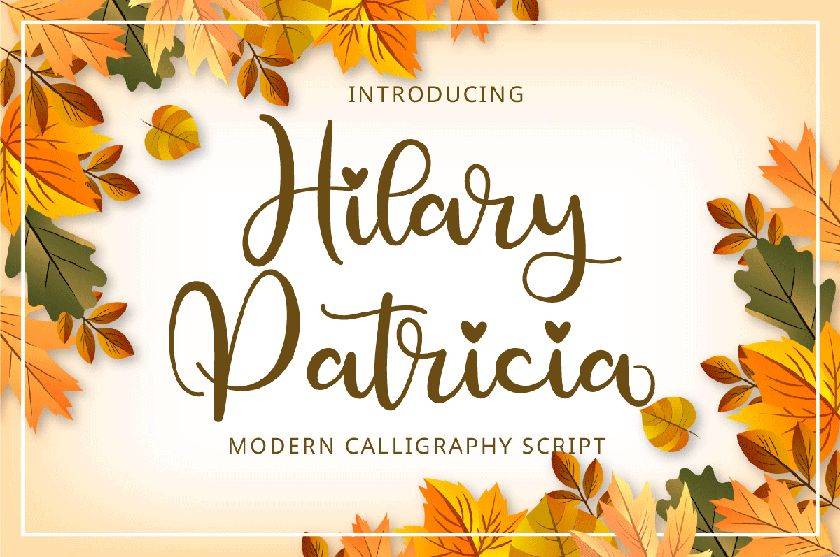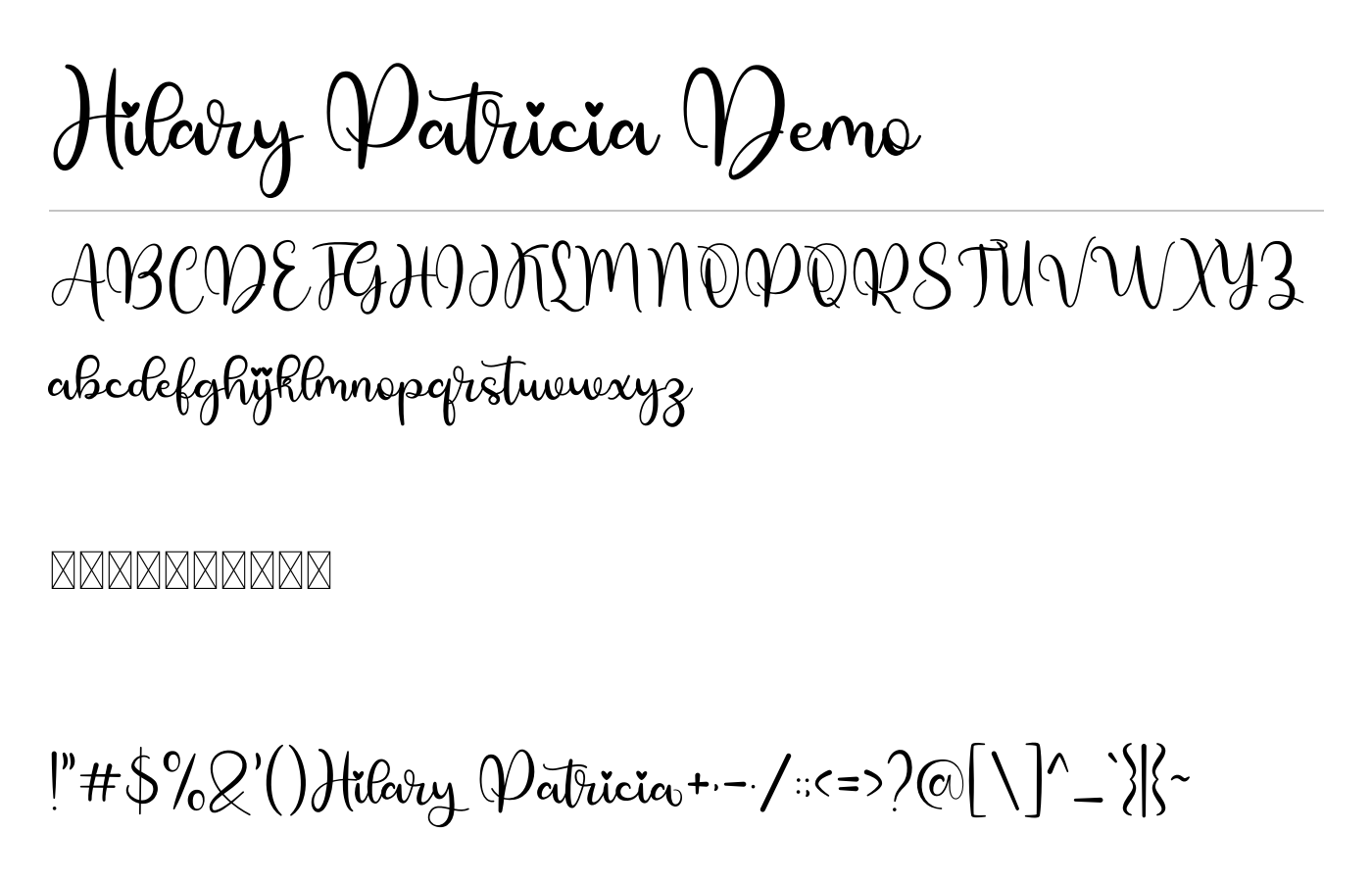
Hilary Patricia is a playful and elegant script font with smooth, flowing lines and charming heart-shaped details that add a whimsical touch. Its light weight and airy letterforms make it ideal for creative and feminine designs, perfect for invitations, branding, and social media where a personal, handwritten feel is desired. This font brings a fresh, friendly personality while maintaining readability for stylish, expressive projects.
Hilary Patricia Font
About Hilary Patricia Font